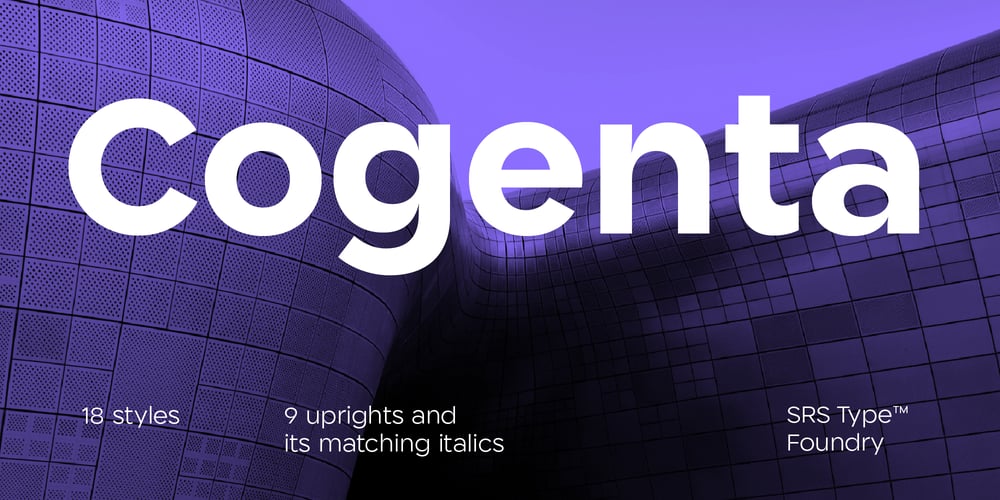
Cogenta
Cogenta font
Cogenta Font Family was designed by Soung-ryung Shin and published by SRS Type. Cogenta contains 18 styles and family package options. Cogenta is a geometric sans serif font that excels in legibility. It features high contrast in the joints of lowercase letters, ensuring excellent readability. With its low cap height, it is particularly well-suited for mobile and web applications. The precise kerning enhances overall satisfaction. Cogenta seamlessly complements a wide range of design applications, including logos, branding, posters, editorial design, and websites, consistently delivering high-quality results.